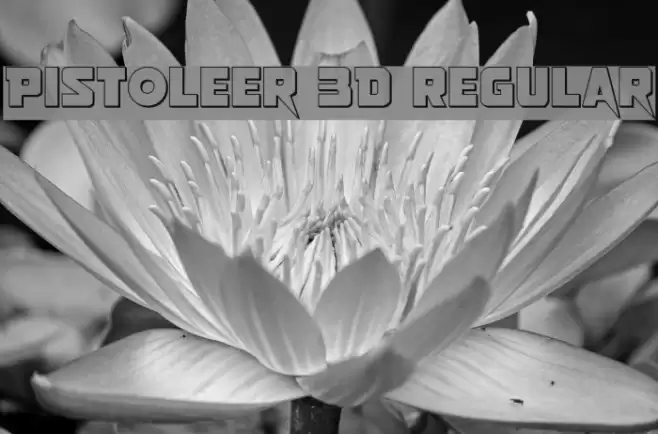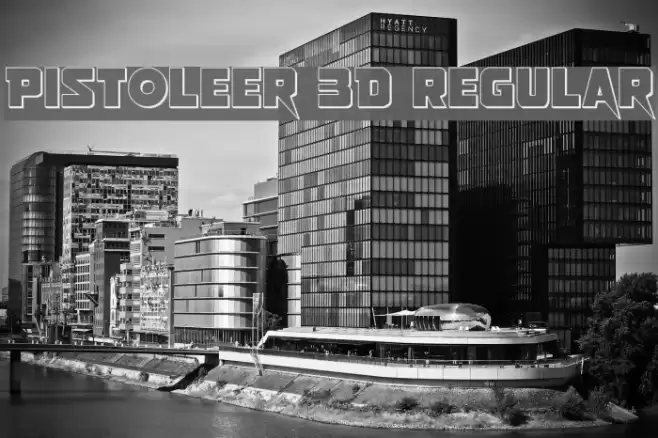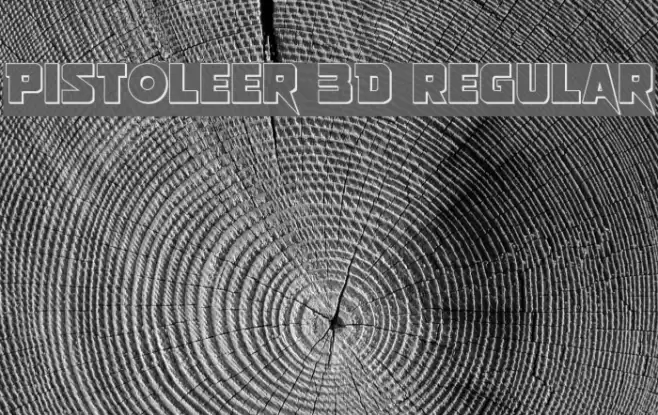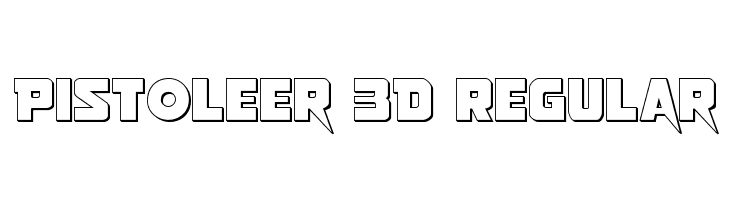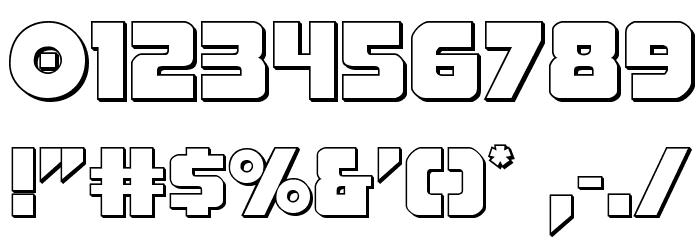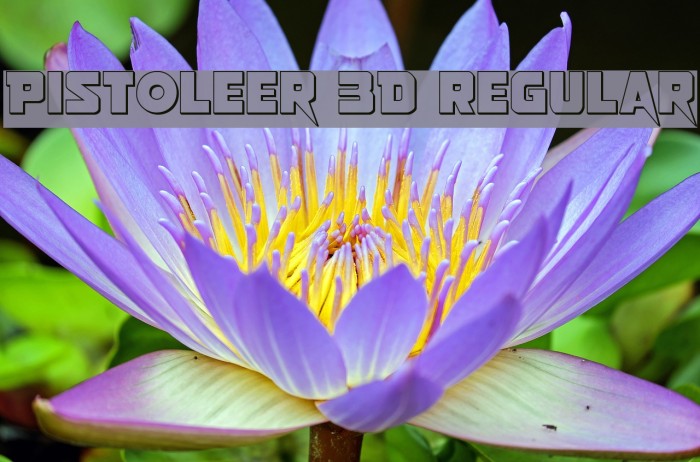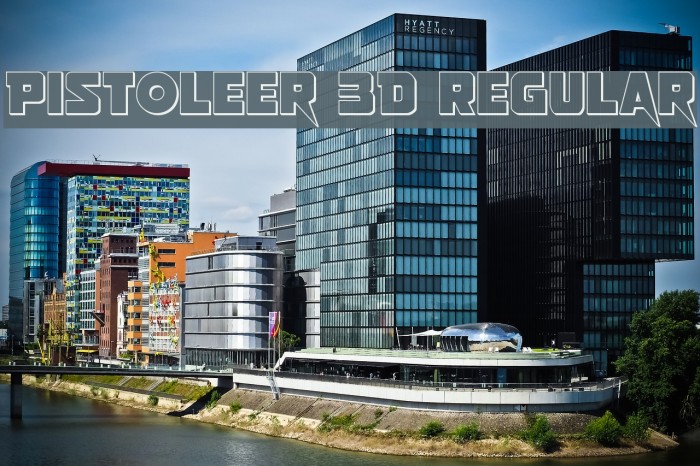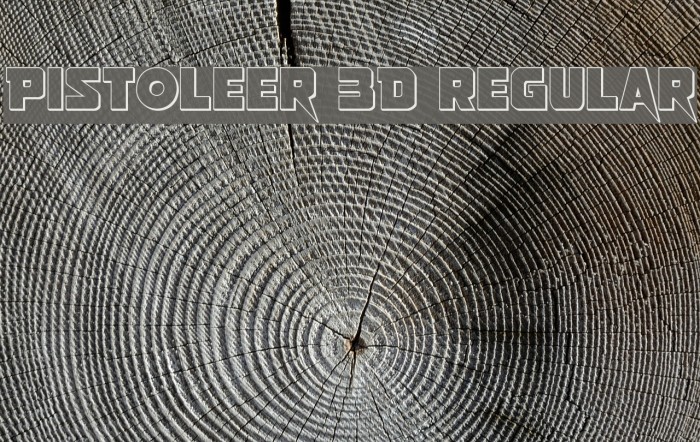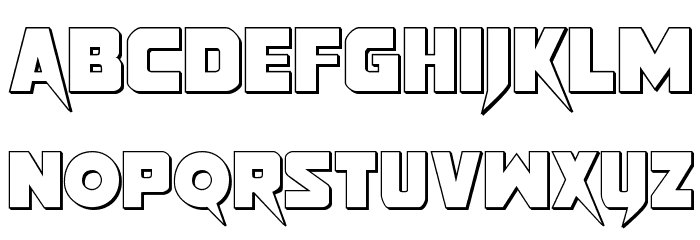
Pistoleer 3D Regular Font
Pistoleer 3D Regular Description
This font features a bold, 3D effect with sharp, angular edges that give it a dynamic and futuristic appearance. The letters are outlined, creating a striking visual impact that is both modern and eye-catching. The geometric shapes and strong lines make it suitable for attention-grabbing headlines or titles. The font maintains a consistent weight throughout, with a uniform width that ensures readability despite its decorative style. The characters are tightly spaced, enhancing the compact and cohesive look. The overall style is distinctly modern, with a high contrast between the thick outlines and the inner space of the letters.
A bold, 3D outlined font with sharp, angular edges and a modern, futuristic style from Uncategorized fonts.
- Proposed Projects: Ideal for video game titles, movie posters, sci-fi themed projects, or any design needing a bold, futuristic look.
- Character Spacing: Tight